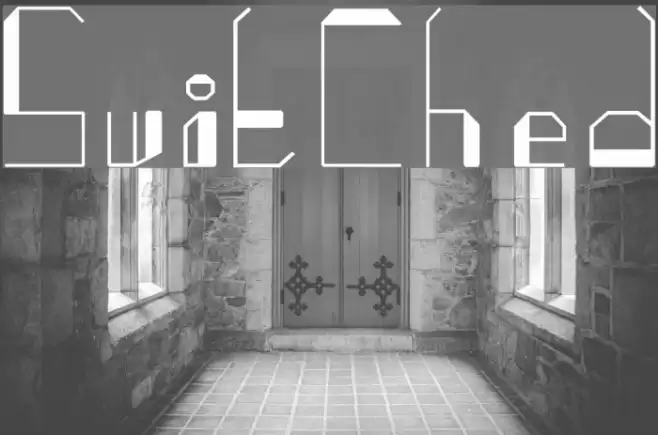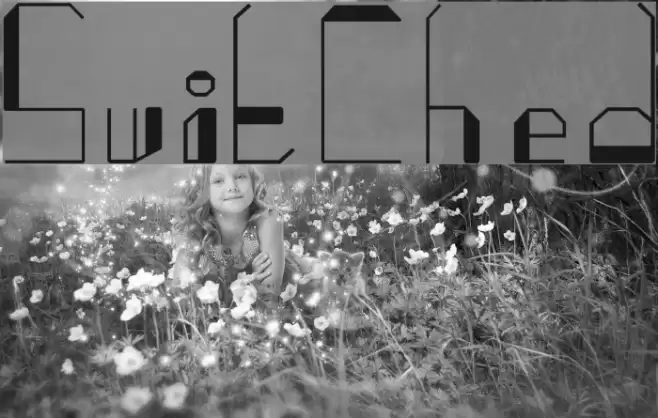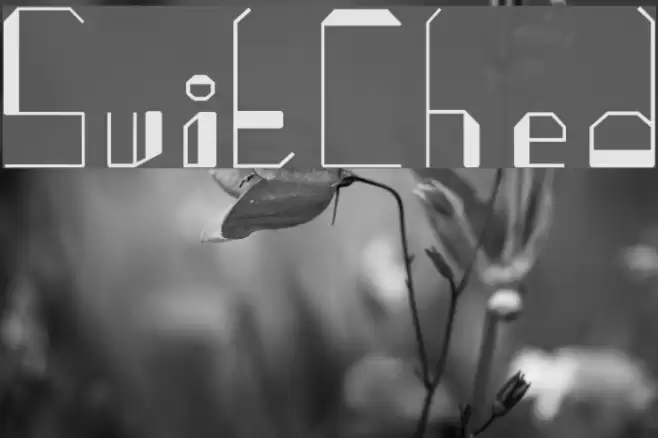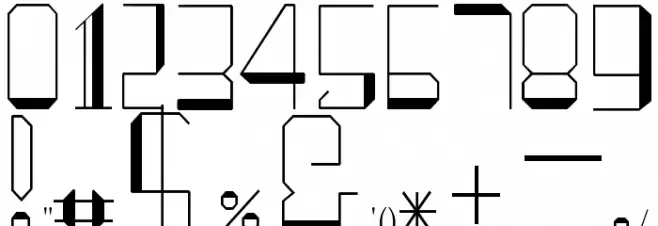
SwitChed Font
SwitChed Description
This font features a unique, futuristic design with a geometric and angular style. The characters are composed of straight lines and sharp angles, giving it a modern and edgy appearance. The uppercase and lowercase letters maintain a consistent design, with some letters incorporating unexpected cuts and angles that add to the font's distinctiveness. The numerals and special characters follow the same geometric theme, ensuring a cohesive look across all elements. This font's bold and striking appearance makes it suitable for projects that require a modern and unconventional aesthetic.
A futuristic, geometric font with sharp angles and a modern style from Uncategorized fonts.
- Proposed Projects: Ideal for sci-fi themed designs, technology branding, modern posters, and innovative product packaging.